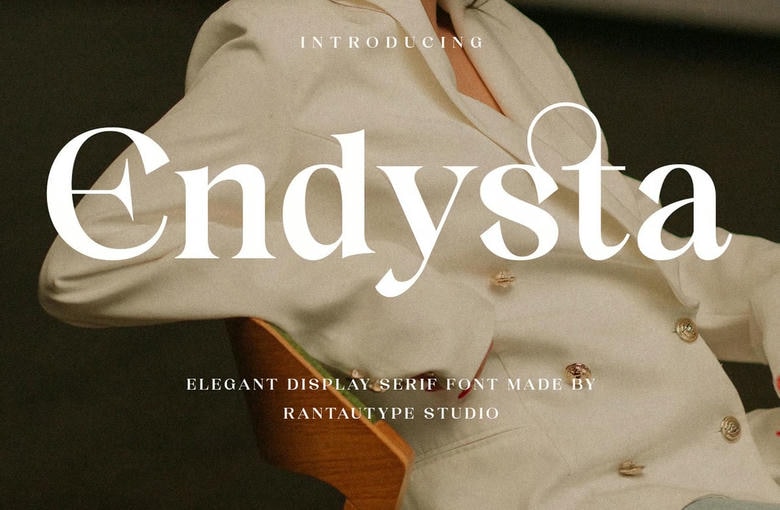
Endysta Font
Endysta is a modern serif font embrace grace and sophistication. Endysta come with delicate shape and well balanced to create you design project to next level. Endysta is a perfectly choice for any creative endeavor, chic, lifestyle design such as logotype, advertisements, watermark on photography, stationery, branding project, display and magazine, invitation, corporate brand, product design, label, business project and many other project with Luxury touch.
Endysta Serif Font